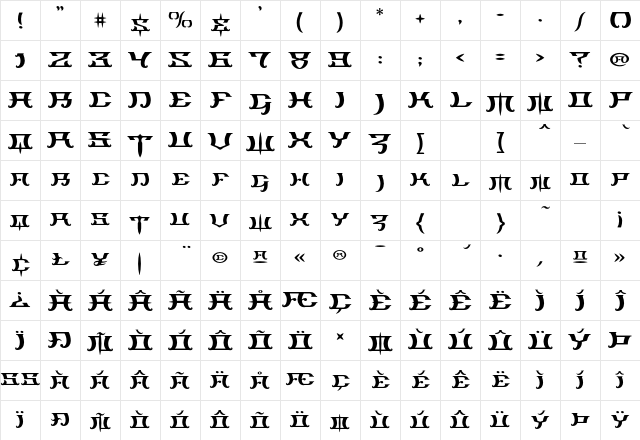
Complete Trillium RegularAlt glyph index. Displaying only characters natively supported by Trillium RegularAlt font.
Trillium is a composed and adaptable typeface that performs quietly and consistently across a wide range of design contexts.